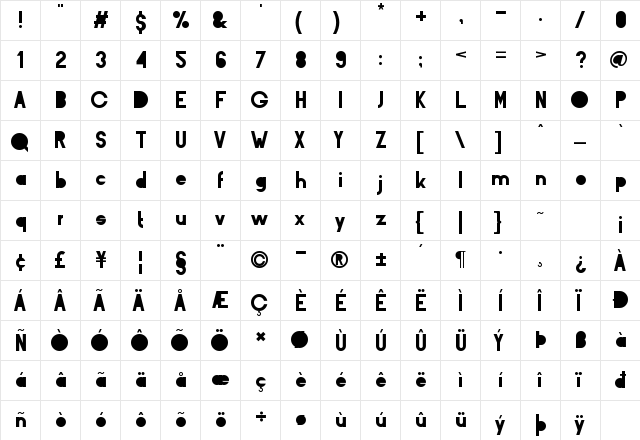
BarQ Blind Bold Bold
Design Context for BarQ Blind Bold Typeface
BarQ Blind Bold takes a measured approach to typography — its balanced proportions and neutral character make it a reliable workhorse for both digital and print work. Its bold stroke weight gives it real presence on the page.